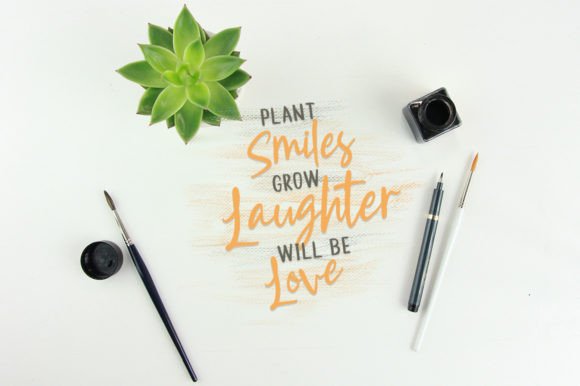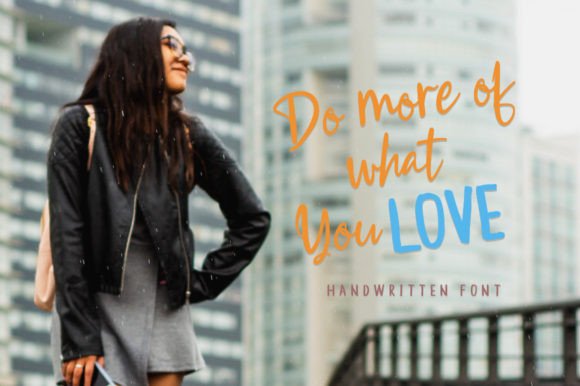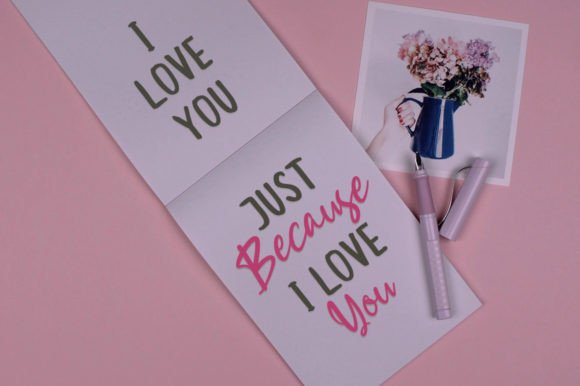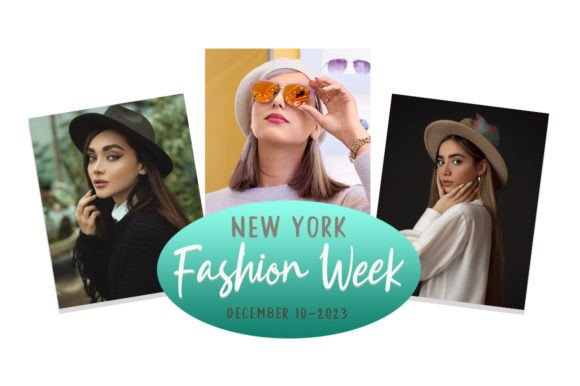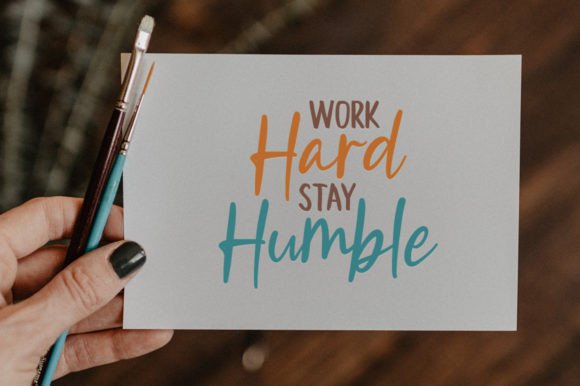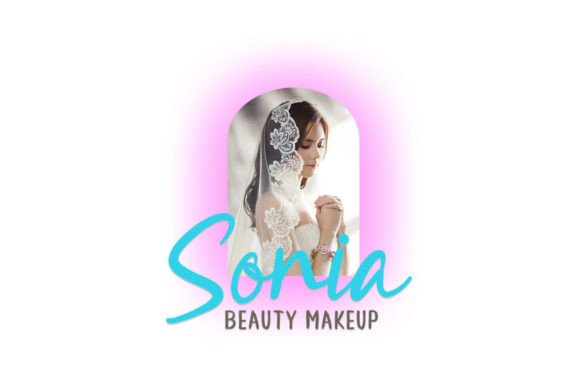
Introduction to Hello Arfelina Font
Hello Arfelina Font Duo it has modern hand scratches.
If you want to use it for your work this font can be used easily and simply because there are a lot of features in it to contain a complete set of letters lower and uppercase letters, assorted punctuation, numbers, and multilingual support The font also contains several ligatures and alternate styles.